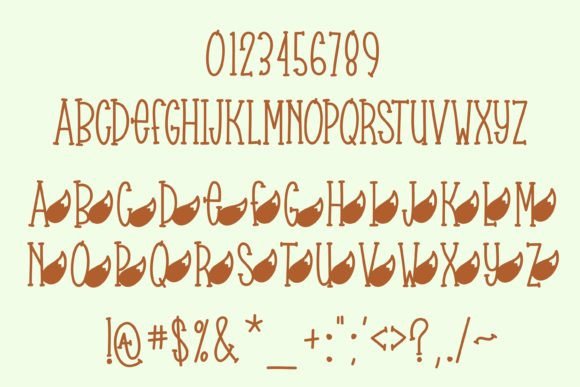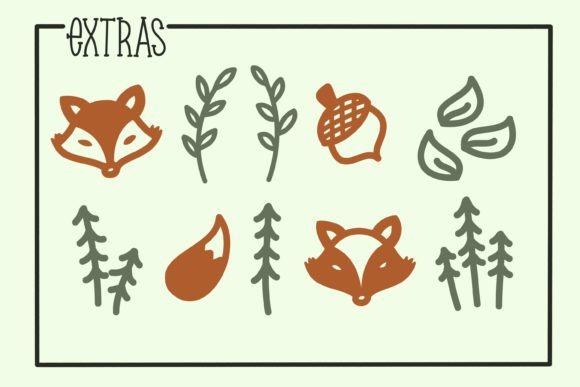
Introduction to Fauxtales Font
Fauxtales is a whimsical, storybook-inspired font that brings a touch of fantasy and magic to any design.
Its playful, imaginative style makes it perfect for childrenโs books, posters, or anything needing a dash of enchantment .
Key Features of Fauxtales Font
Why Choose Fauxtales Font?